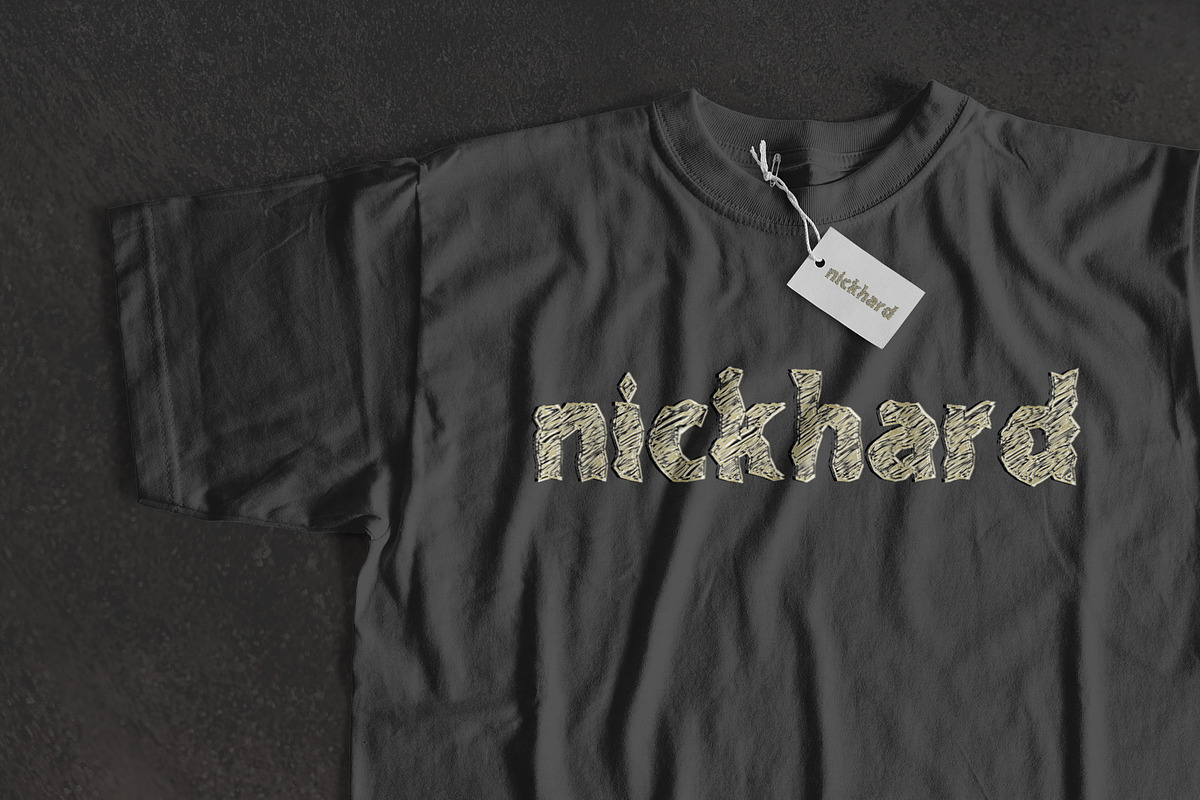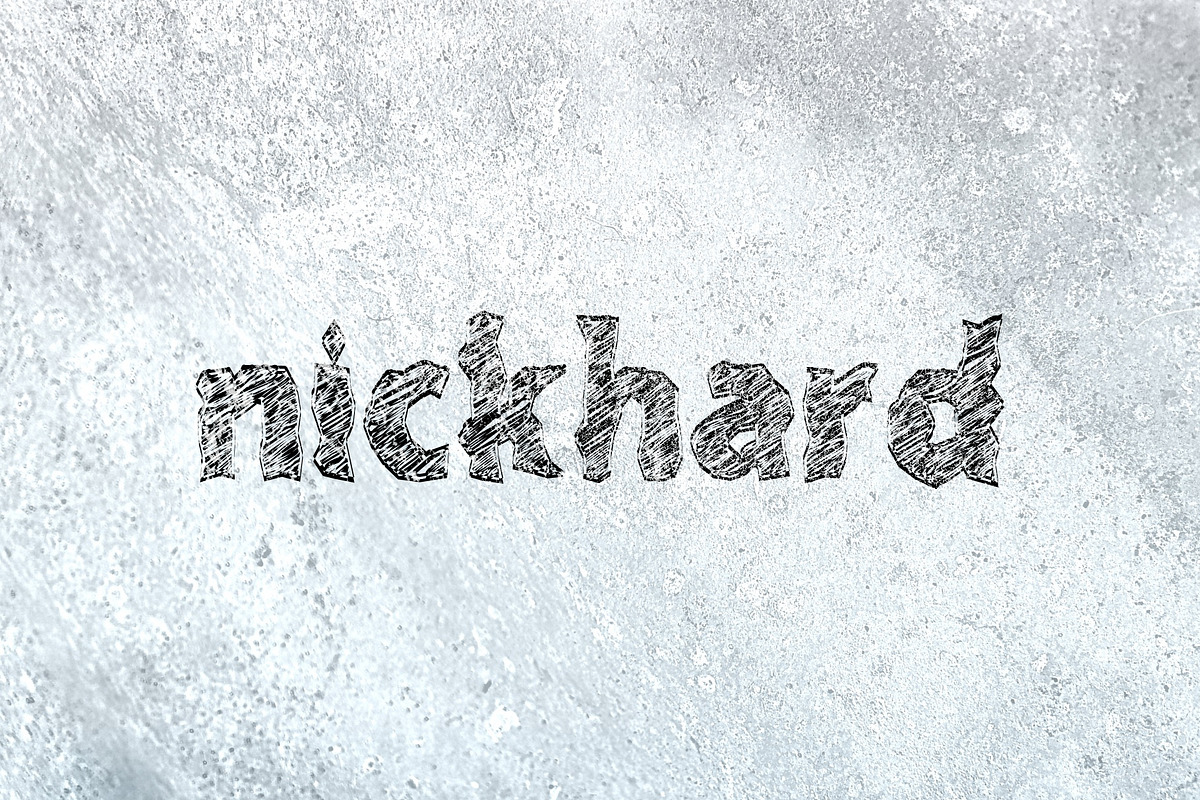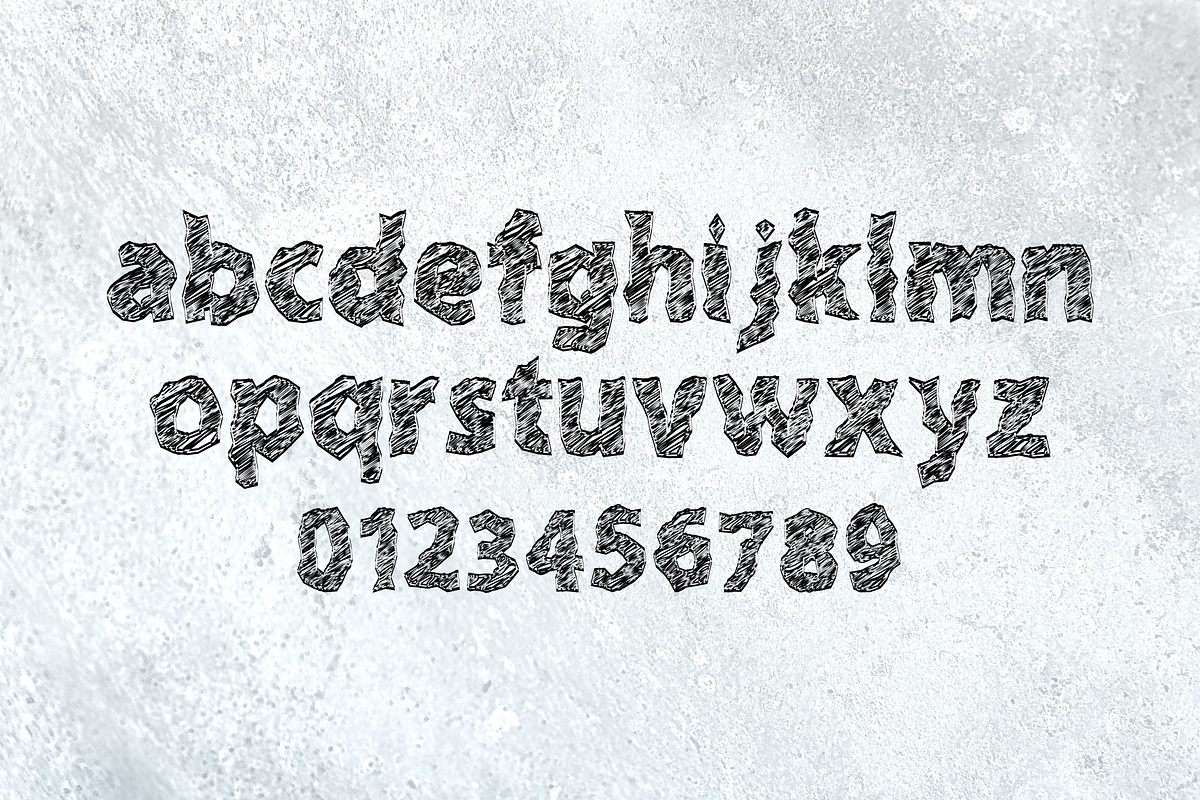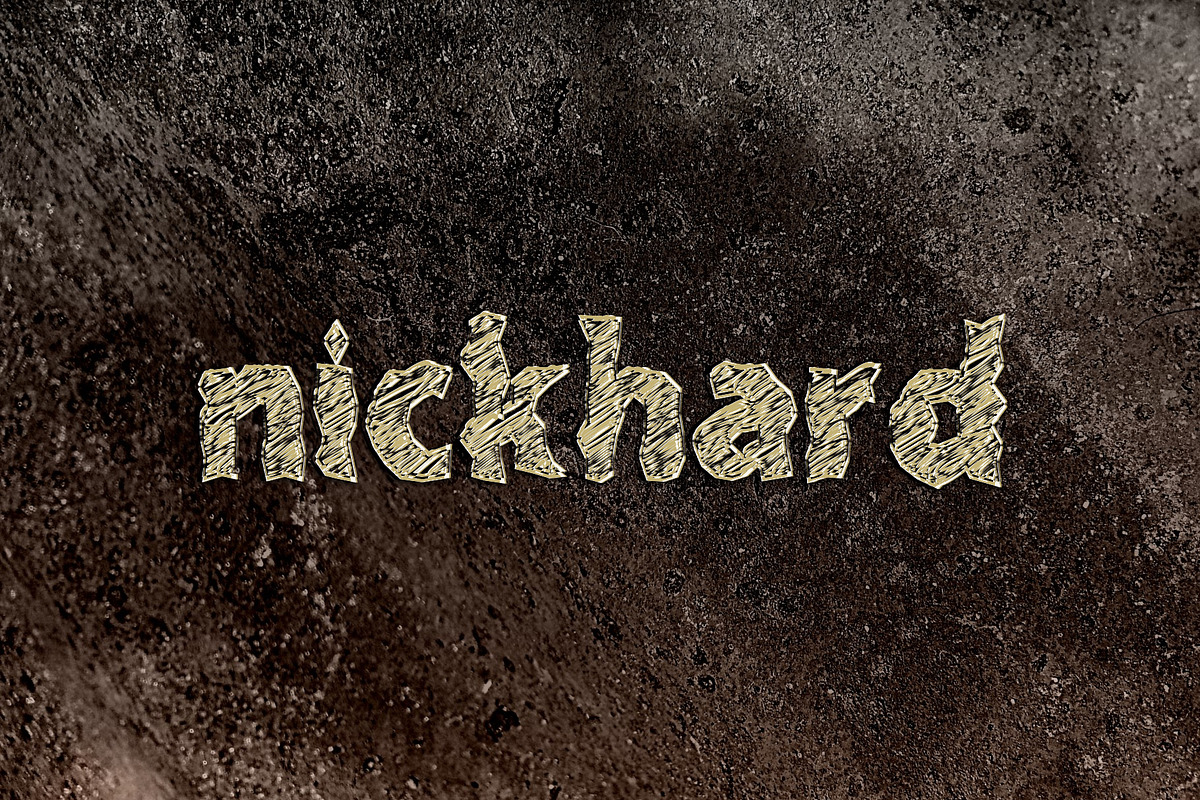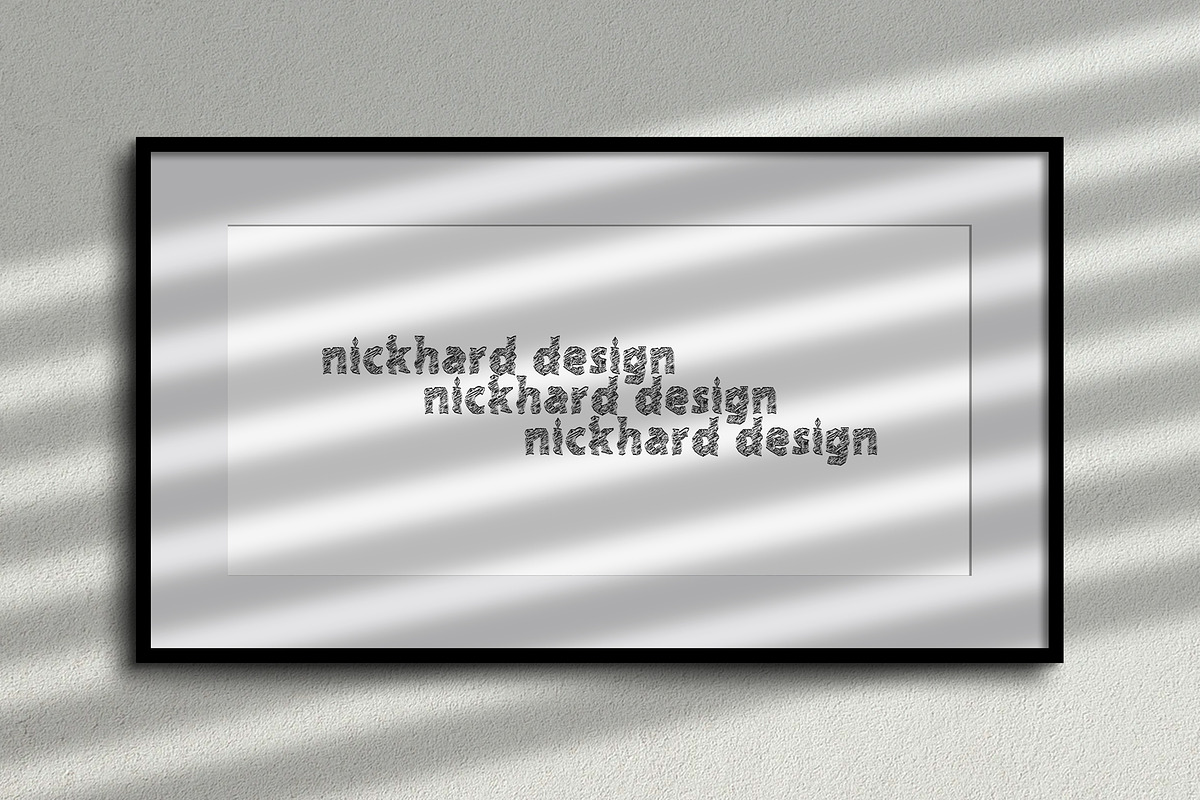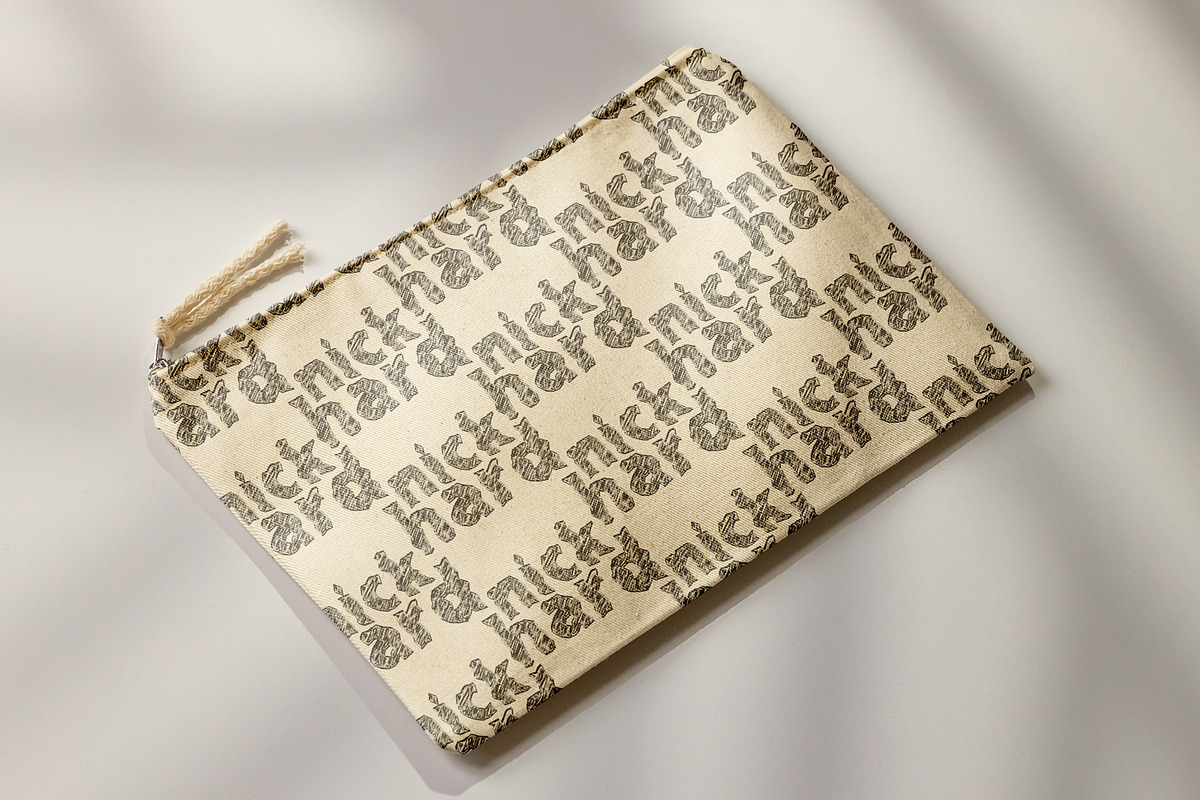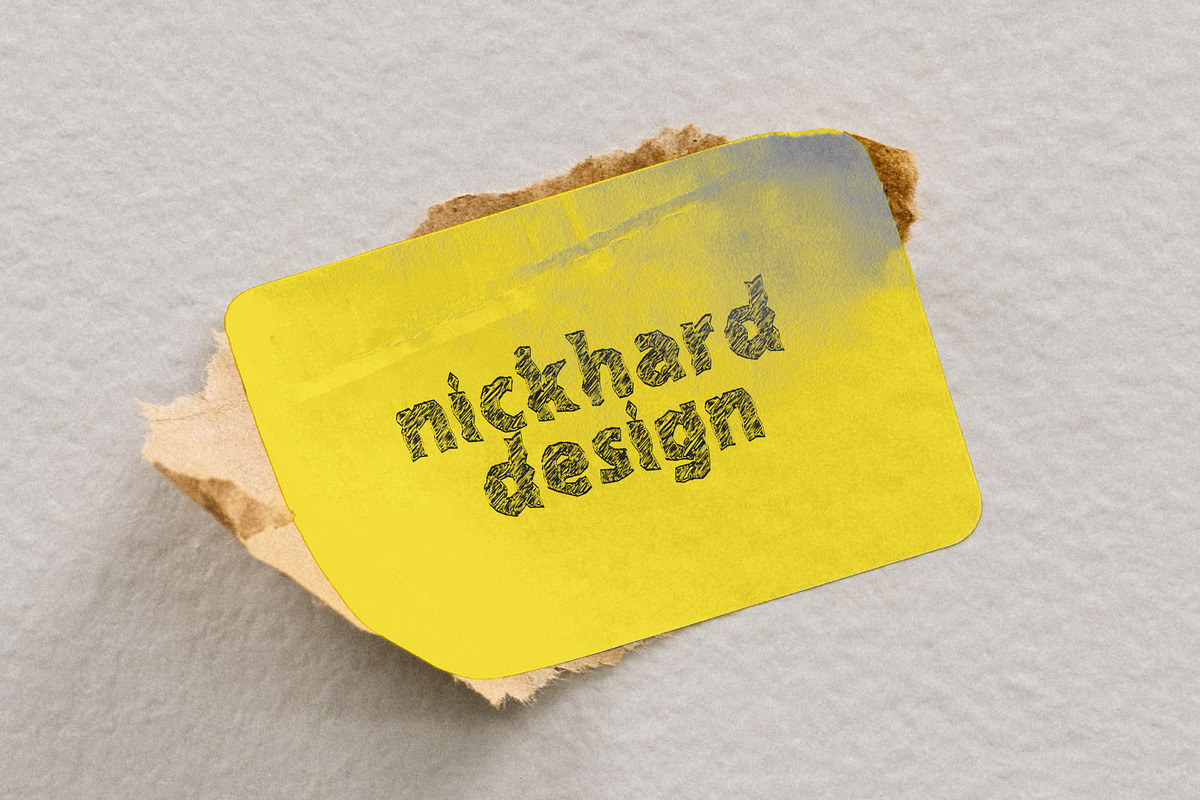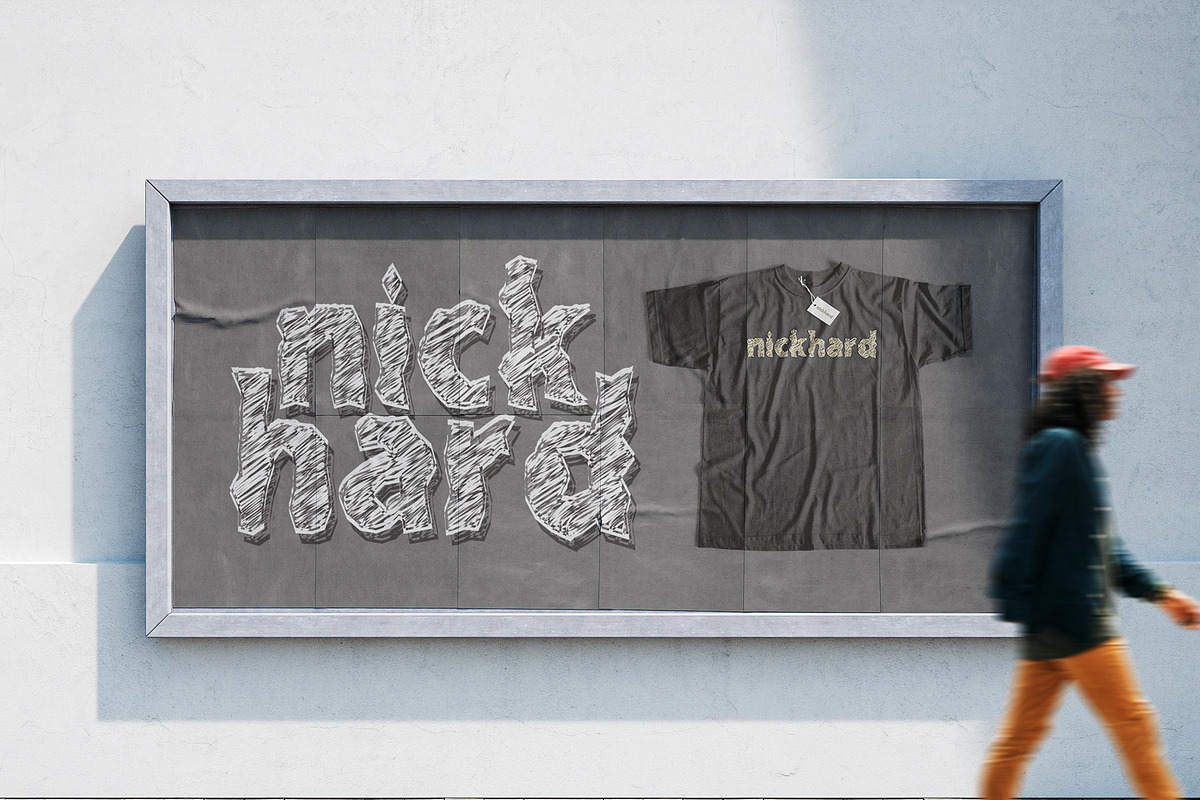
Nickhard
You want to add more rawness to your design. The NICKHARD Font comes in Unbored Scribbles style, making your voice louder. NICKHARD is handwritten font. You can also combine any character with a NICKHARD Font and alternates for an incredible combination!
This font is perfect for your display project for headlines, quotes, editorial design, print posters, Tshirt, and much more.